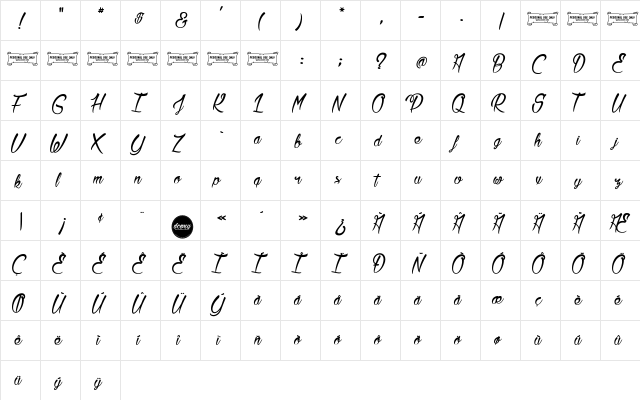
La Citadelle des Papillons Regular
| Designer | dcoxy Medina Gregory |
Design Context for La Citadelle des Papillons Typeface
La Citadelle des Papillons is a composed and adaptable typeface that performs quietly and consistently across a wide range of design contexts.